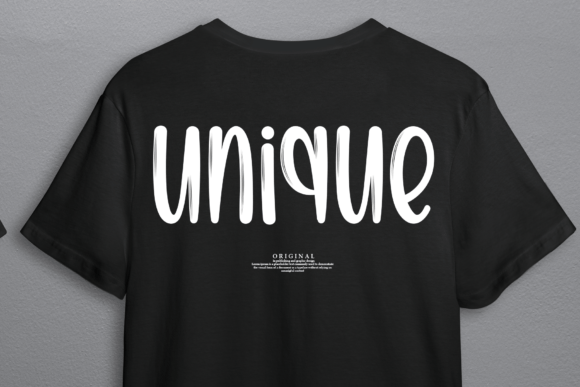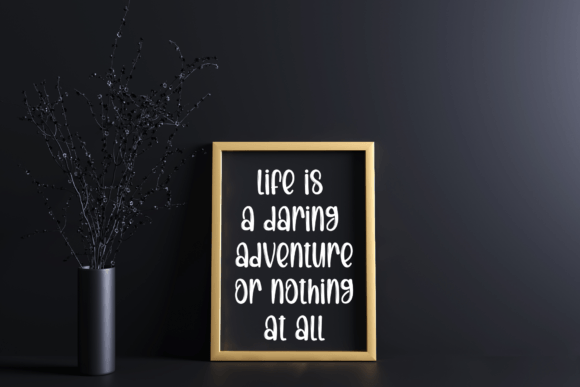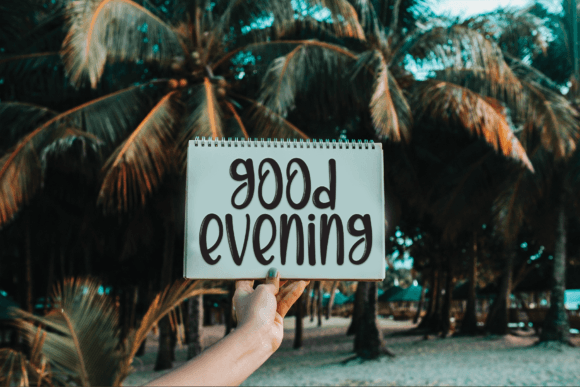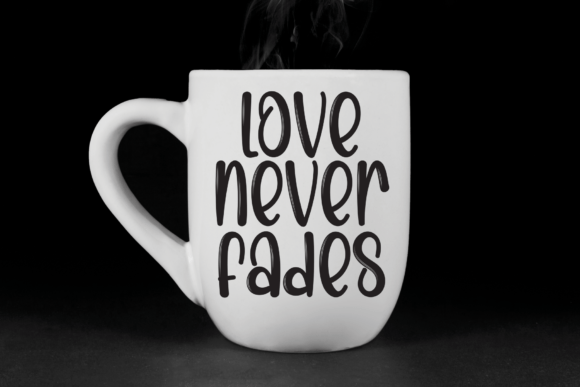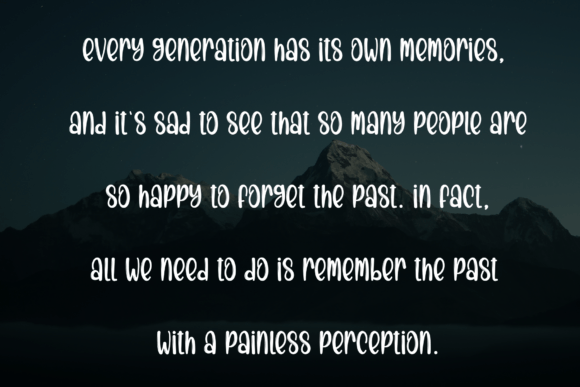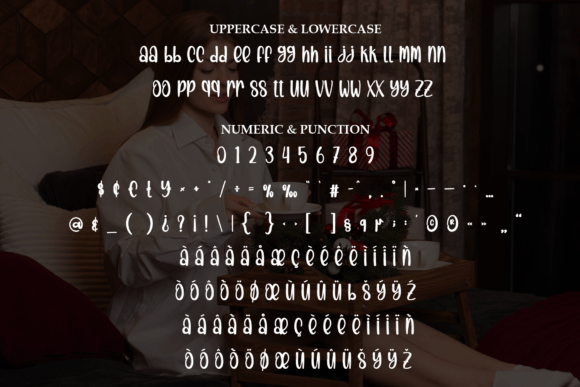
Introduction to Christmas Casual Font Font
Fonts play a crucial role in design, and the Christmas Casual Font font is a typeface that brings both character and versatility to any project. Whether you’re working on a branding project, a website, or a print design, the Christmas Casual Font font offers a unique style that can elevate your work.
Christmas Casual is a sweet and cursive handwritten font.
This gentle font will look gorgeous on a variety of design ideas It will add a joyful and romantic touch to each of your projects.
Key Features of Christmas Casual Font Font
Why Choose Christmas Casual Font Font?
The Christmas Casual Font font is more than just a typeface – it’s a design tool that helps you communicate your message with style and clarity. Its unique character set and versatile design make it suitable for a wide range of applications, from elegant invitations to bold headlines.
With its carefully crafted letterforms and balanced proportions, the Christmas Casual Font font ensures readability and visual appeal across all mediums.
What makes Christmas Casual Font font special?
The Christmas Casual Font font stands out with its unique design, exceptional readability, and versatility across various design applications.